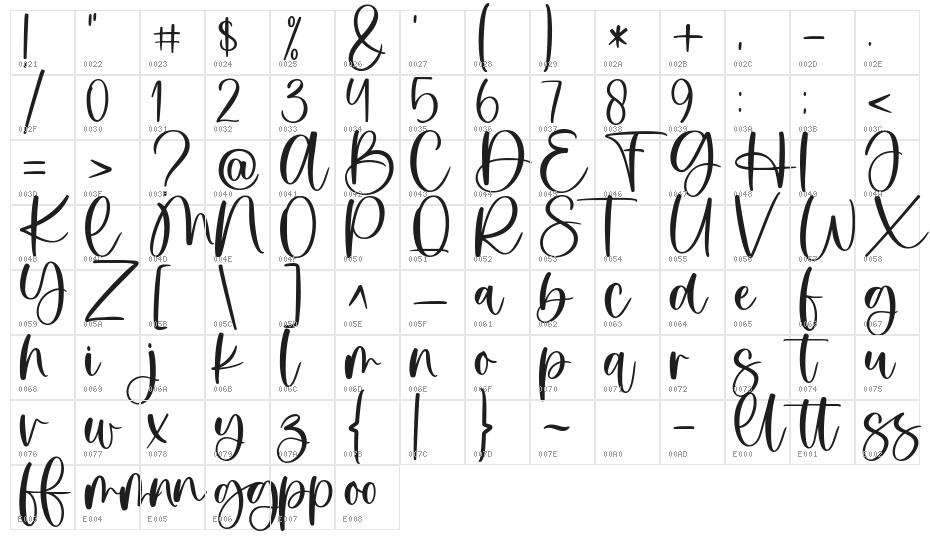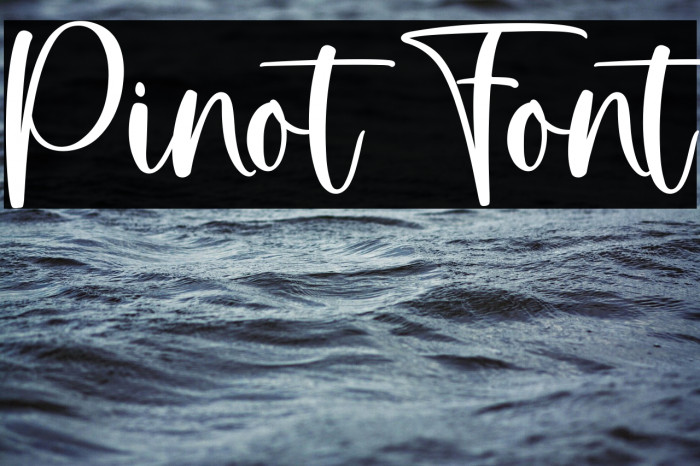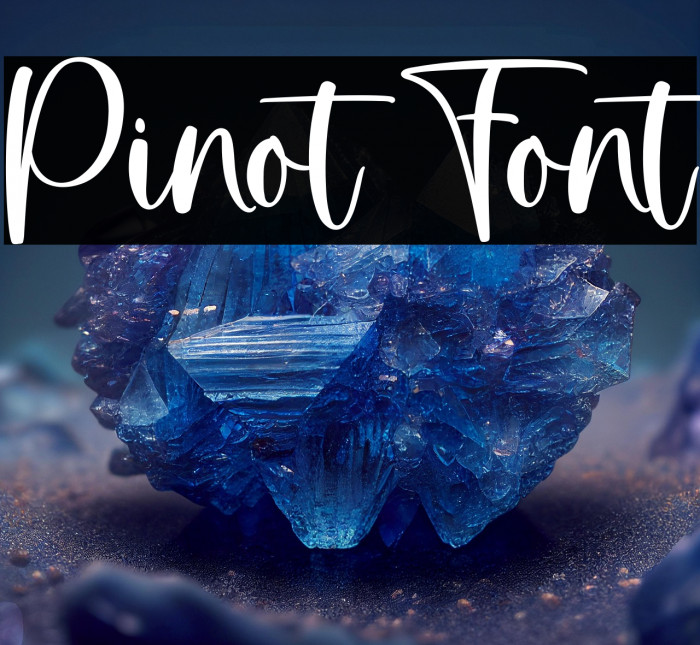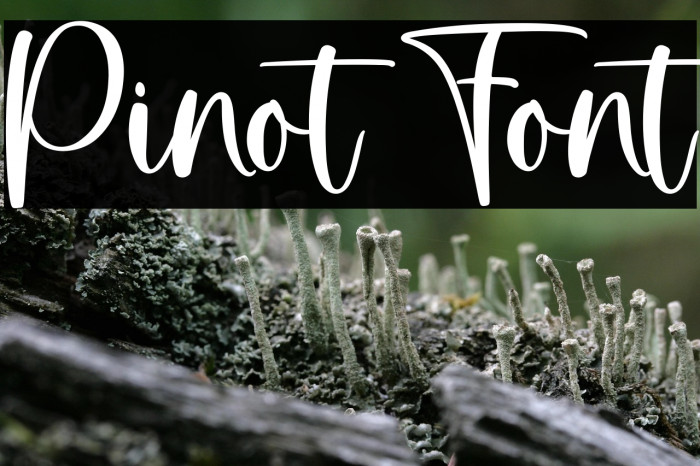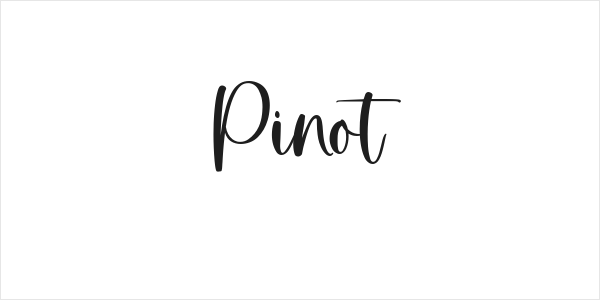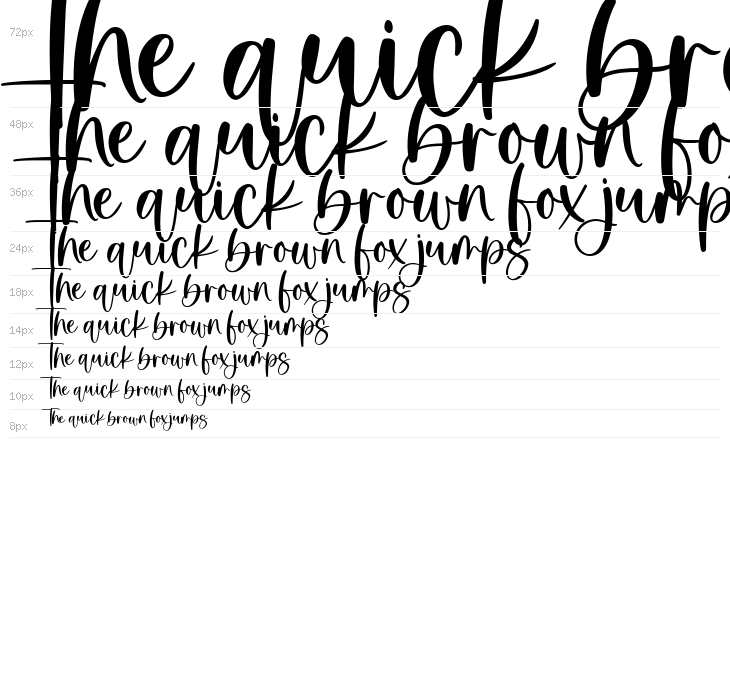
Pinot Font
Pinot Description
This font features a lively and expressive handwritten style, characterized by its fluid and dynamic strokes. The letters are crafted with a playful elegance, showcasing a mix of thick and thin lines that add a sense of movement and personality. The uppercase letters are bold and confident, while the lowercase letters maintain a charming, casual feel. Numbers and special characters follow the same energetic style, making the font versatile for various creative projects. The overall appearance is both modern and whimsical, perfect for adding a personal touch to any design.
| Overall Style | Modern, Whimsical |
| Use Case | Logos, Headlines, Invitations |
| Proposed Projects | Ideal for greeting cards, invitations, branding, social media graphics, and personal projects. |